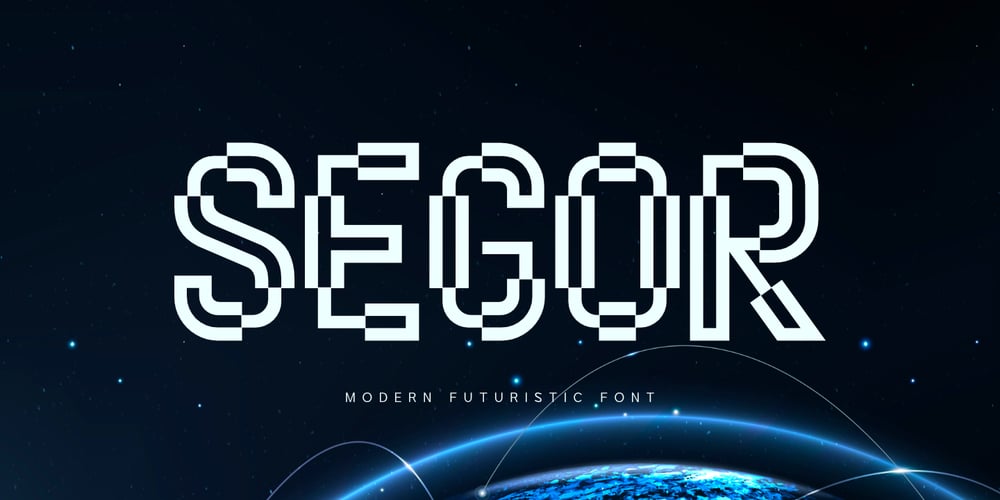
Segor Font Family was designed by Saiful Anwar and published by Sealoung. Segor contains 1 styles and family package options. Introducing “Segor” – A Modern Futuristic FontStep into the future with Segor, a cutting-edge modern futuristic font designed to elevate your projects to new heights. This sleek, stylish typeface boasts clean lines and geometric shapes, perfect for creating a contemporary and forward-thinking aesthetic.Complete Character Set: Uppercase letters, numbers, and punctuation, ensuring full functionality for all your design needs.Dynamic Appeal: Ideal for technology-related projects, sci-fi themes, branding, posters, and digital interfaces.With Segor, your designs will exude sophistication and a touch of futurism, making a bold statement that captures attention and imagination. Upgrade your font collection with Segor and bring your creative visions to life. –Uppercase